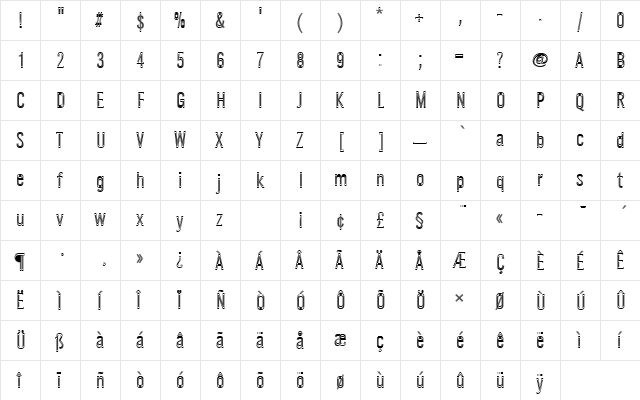
URWGroteskTLigConIn1 Regular Font Preview
URWGroteskTLigConIn1 Regular
URWGroteskTLigConIn1 Regular Font Details
Design Context for URWGroteskTLigConIn1 Typeface
URWGroteskTLigConIn1 takes a clean, functional approach — its unadorned letterforms prioritise legibility and work reliably across screen and print environments.